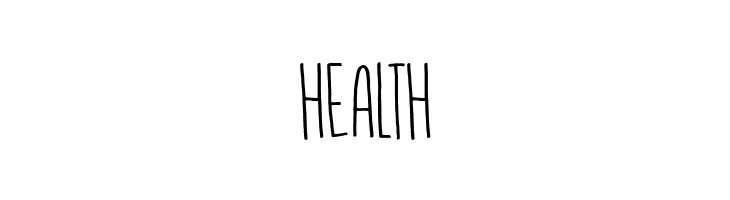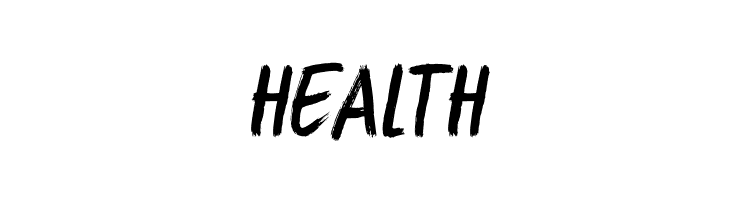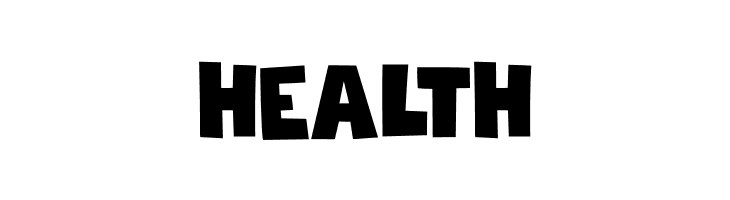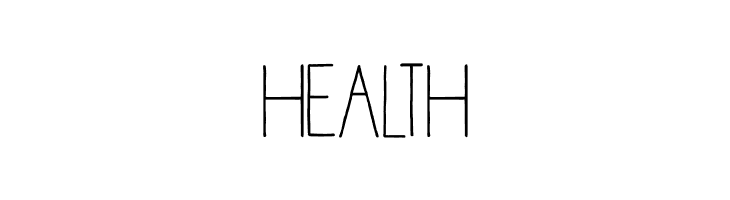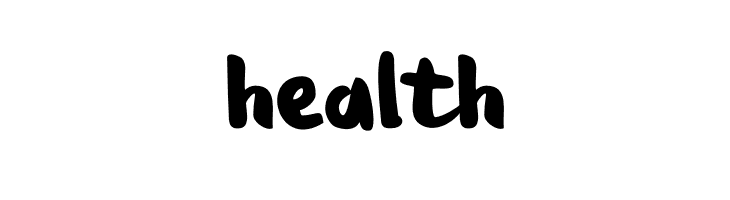
A playful, handwritten font with quirky, narrow letters and whimsical elements.
A geometric, Art Deco-inspired font with sleek, angular lines.
A playful, hand-drawn font with tall, narrow letters and artistic flair.
A bold, decorative font with a vintage, textured style.
A playful, bold handwritten font with whimsical, rounded characters.
A bold, hand-drawn font with a textured, artistic style.
A playful, bold font with a chunky, hand-drawn style.
A playful, bold font with rounded, bubbly characters and a whimsical style.